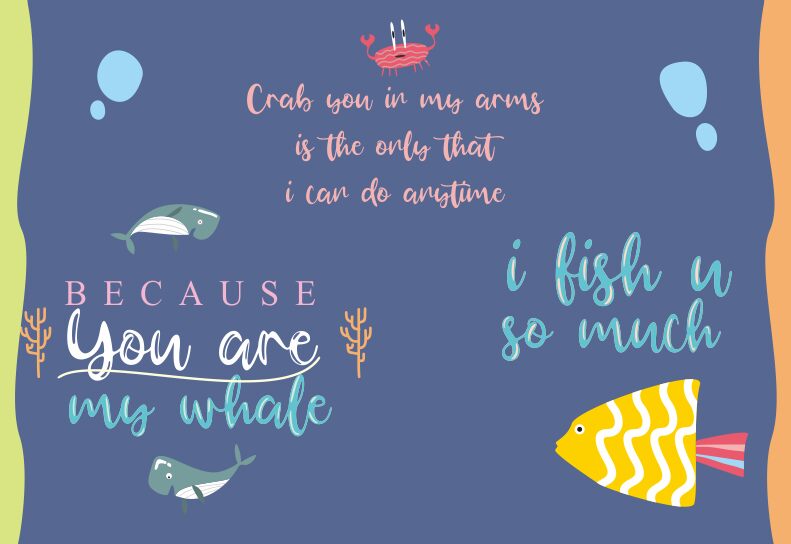
Gerimist Base
Gerimist Base, a captivating handwritten font by Zain Fahroni, adds a touch of elegance and personality to any project. Its semi-bold weight ensures readability while maintaining a sense of sophistication. This versatile typeface is ideal for various creative endeavors, including branding materials, logo designs, packaging, and social media graphics. Whether you're crafting invitations for an upscale event or developing a trendy fashion blog, Gerimist Base will elevate your projects with its graceful strokes and distinctive charm. Embrace the beauty of custom hand-lettering with this font that demands attention and leaves a lasting impression.